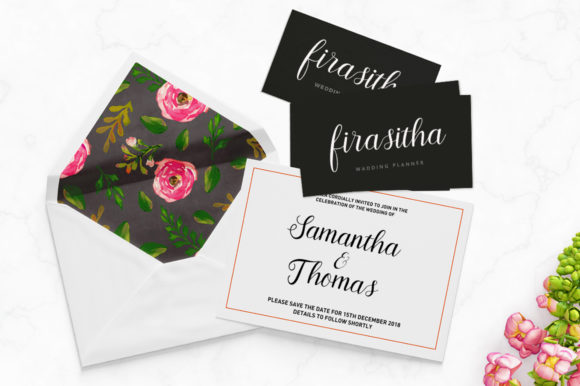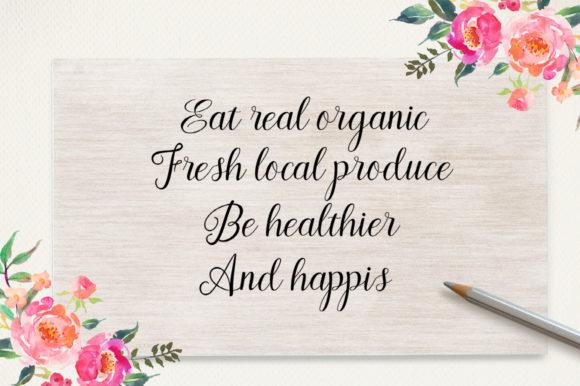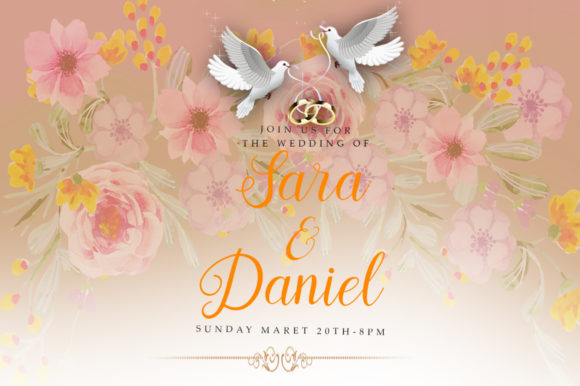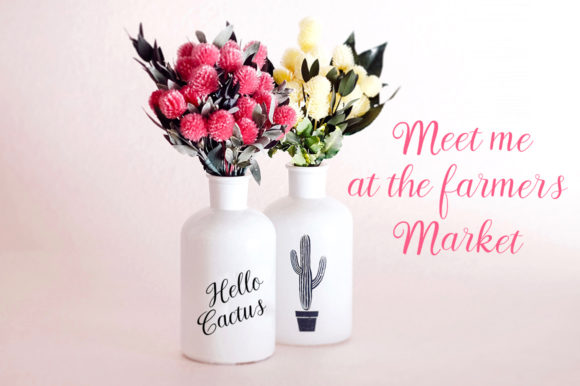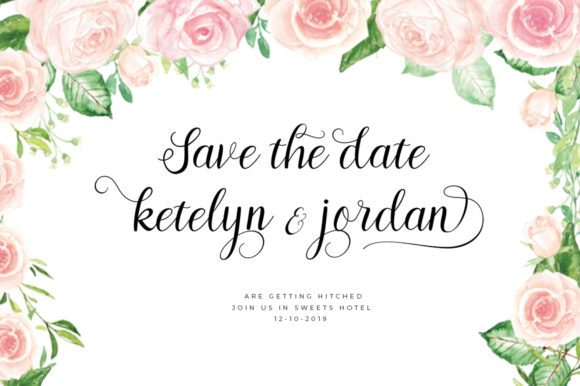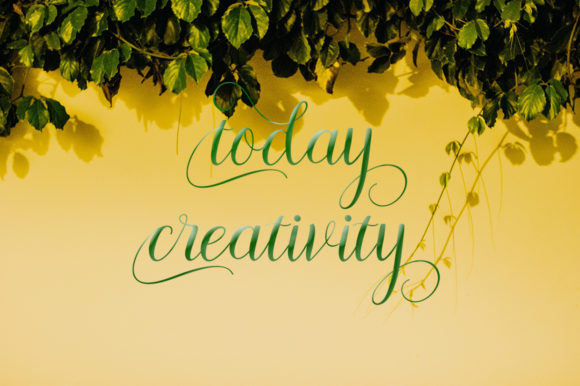
Enter the Angelia Script Font, a modern script font that exudes a trendy and feminine style. With its irregular baseline, this font is perfect for adding a touch of elegance to your designs. Whether you’re creating wedding invitations, thank you cards, or quotes, the Angelia Script Font is sure to impress. As a designer, you’ll appreciate the versatility of this font, which can be used for a wide range of projects, from business cards to logos.
- Unique Characteristics: Handwritten, cursive script font with elegant, flowing lines and subtle flair, perfect for creative projects
Designer Review: Angelia Script Font
Overall, I think the Angelia Script font is a great choice for designers looking for a elegant, handwritten feel. ✨ Its cursive lines and flourishes add a touch of sophistication to any design. I particularly like how the font works well in headings and titles, making it perfect for branding and marketing materials.
- ✨ Elegant and refined look, perfect for upscale designs
- ✨ Highly legible, even at small font sizes
- ✨ Compatible with a wide range of devices and browsers
- ⚠️ The font may be a bit too ornate for certain designs, making it difficult to read
- ⚠️ Limited character set, which may not be ideal for designers who need to use special characters or languages
- ⚠️ Some users may find the font a bit too generic, lacking in unique personality
Overall, I think the Angelia Script font is a solid choice for designers who want to add a touch of elegance to their designs. While it may have some limitations, it’s a great option for branding, marketing, and other applications where a refined, handwritten feel is desired.
Getting the Most Out of Angelia Script Font
For best results, use the Angelia Script font in conjunction with a simple background and minimal design elements.
Avoid using the font in small sizes or with too much text, as it can be difficult to read.
Experiment with different font sizes, colors, and combinations to create a unique and eye-catching design.
The Angelia Script font is ideal for:
Branding and logos
Photography captions and quotes
Special occasion cards and gifts
Alternatives to Angelia Script Font
Great Vibes is a beautiful, modern script font with a high level of elegance and sophistication. It’s ideal for use in wedding invitations, greeting cards, and other creative projects where a touch of whimsy is desired.
Compared to Angelia Script Font, Great Vibes has a more modern feel and a wider range of letterforms, making it a versatile choice for designers.
Carolyna Pro is a stylish, high-end script font with a vintage feel and a touch of luxury. It’s perfect for use in high-end branding, advertising, and editorial design projects where a sophisticated look is required.
Unlike Angelia Script Font, Carolyna Pro has a more refined and elegant feel, making it suitable for a wider range of applications, from fashion to finance.
Carolyna Pro is a stylish, high-end script font with a vintage feel and a touch of luxury. It’s perfect for use in high-end branding, advertising, and editorial design projects where a sophisticated look is required.
Unlike Angelia Script Font, Carolyna Pro has a more refined and elegant feel, making it suitable for a wider range of applications, from fashion to finance.
Alex Brush is a beautiful, elegant script font with a personal and emotive feel. It’s ideal for use in invitations, greeting cards, and other creative projects where a touch of warmth and personality is desired.